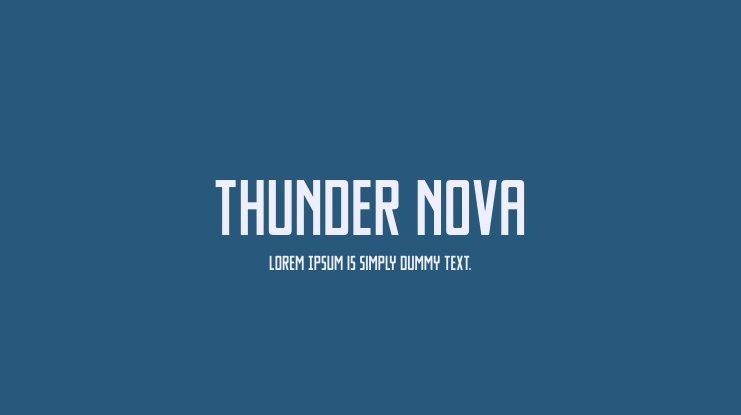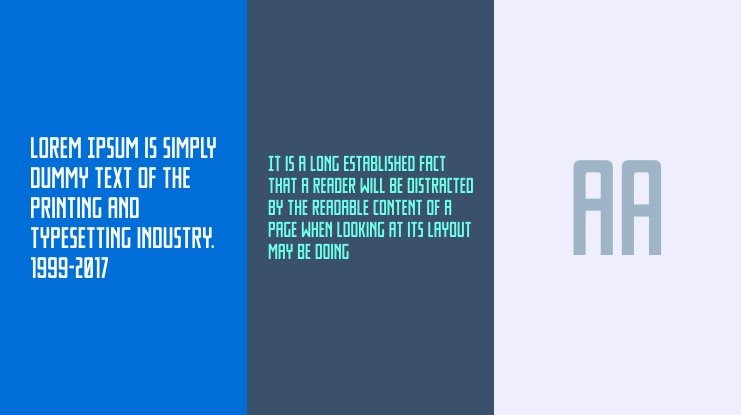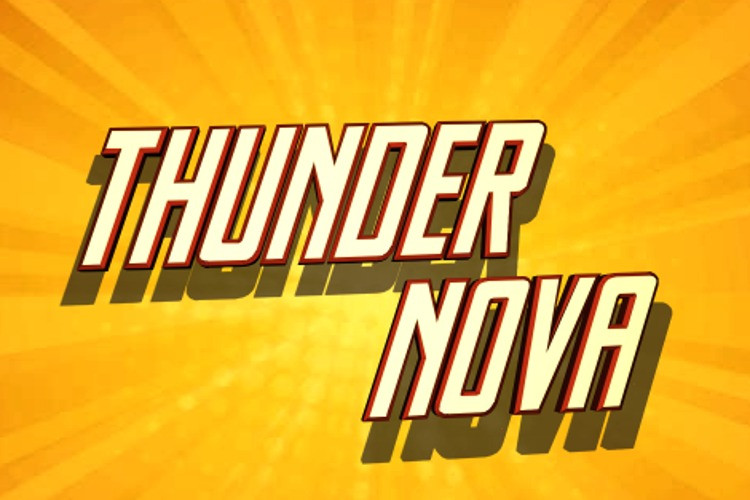
Thunder Nova Display Font, a modern sci-fi font that combines sharp angles. Perfect for high tech themes, alien encounters and general science use!
| Classification: | Display Fonts, Sans Serif Fonts, Stencil Fonts, Techno / Futuristic Fonts |